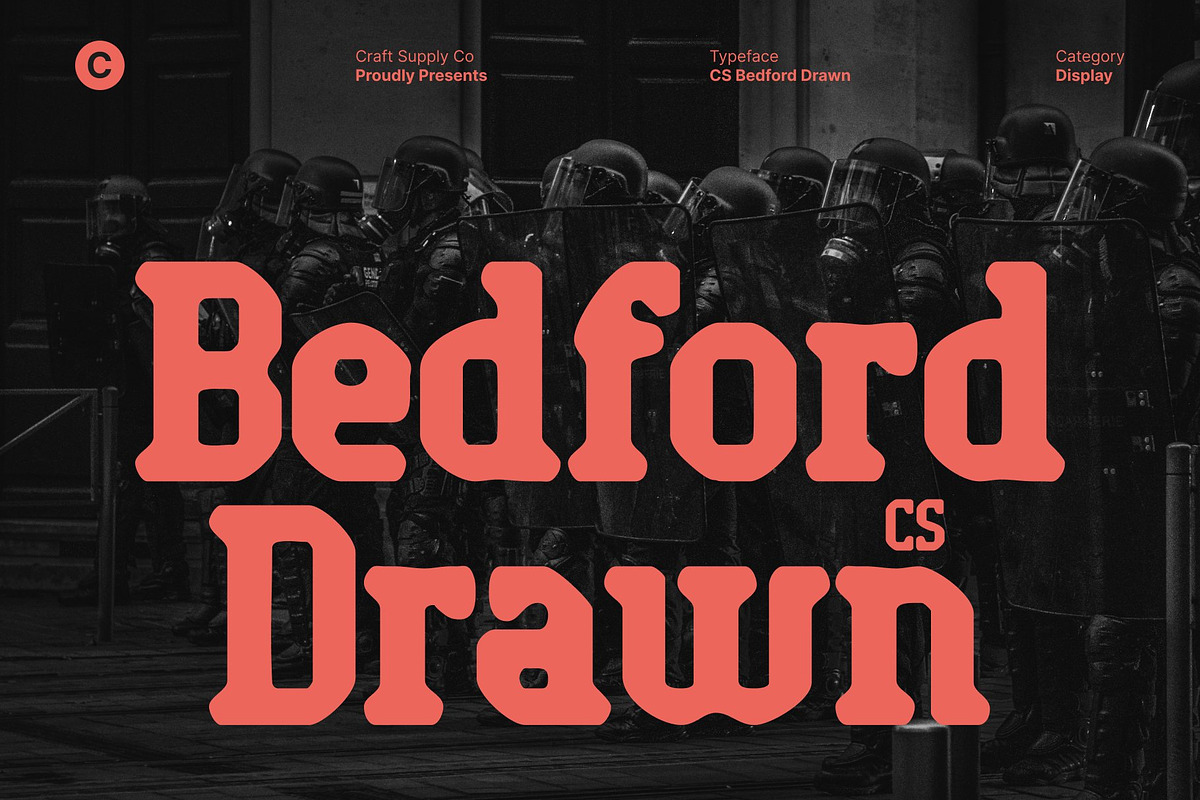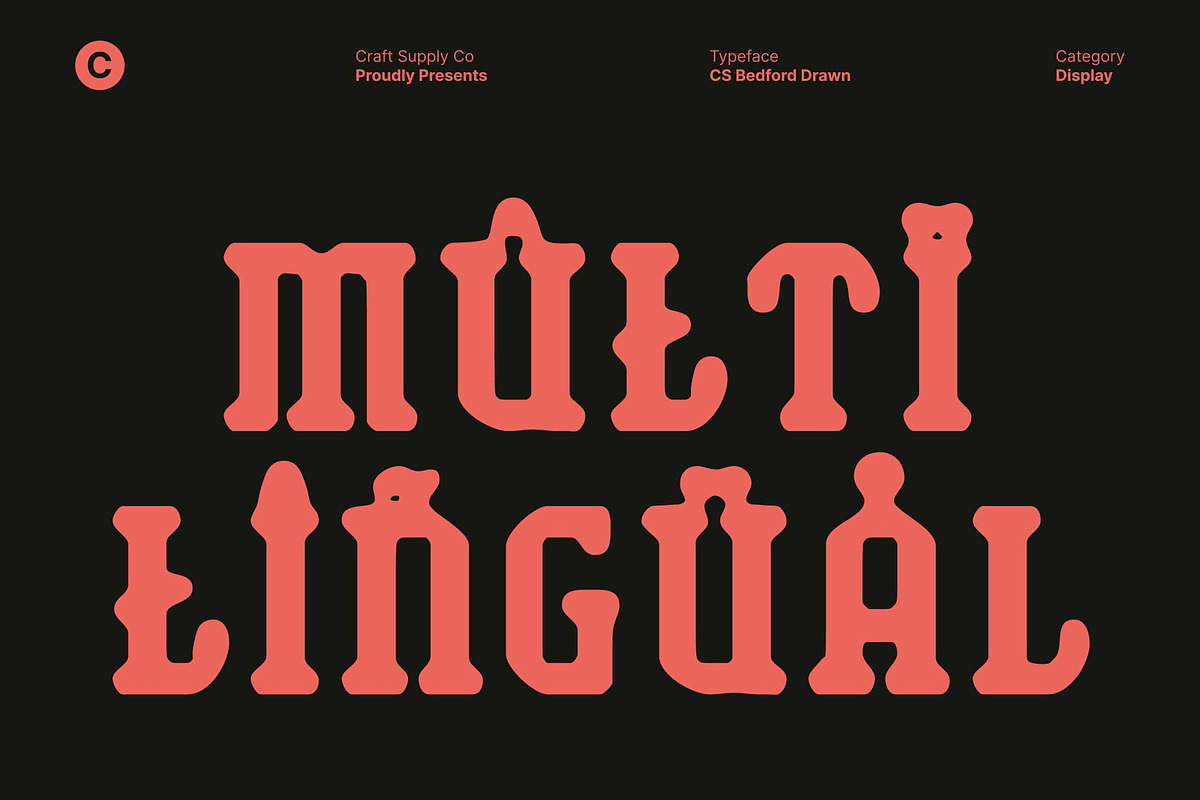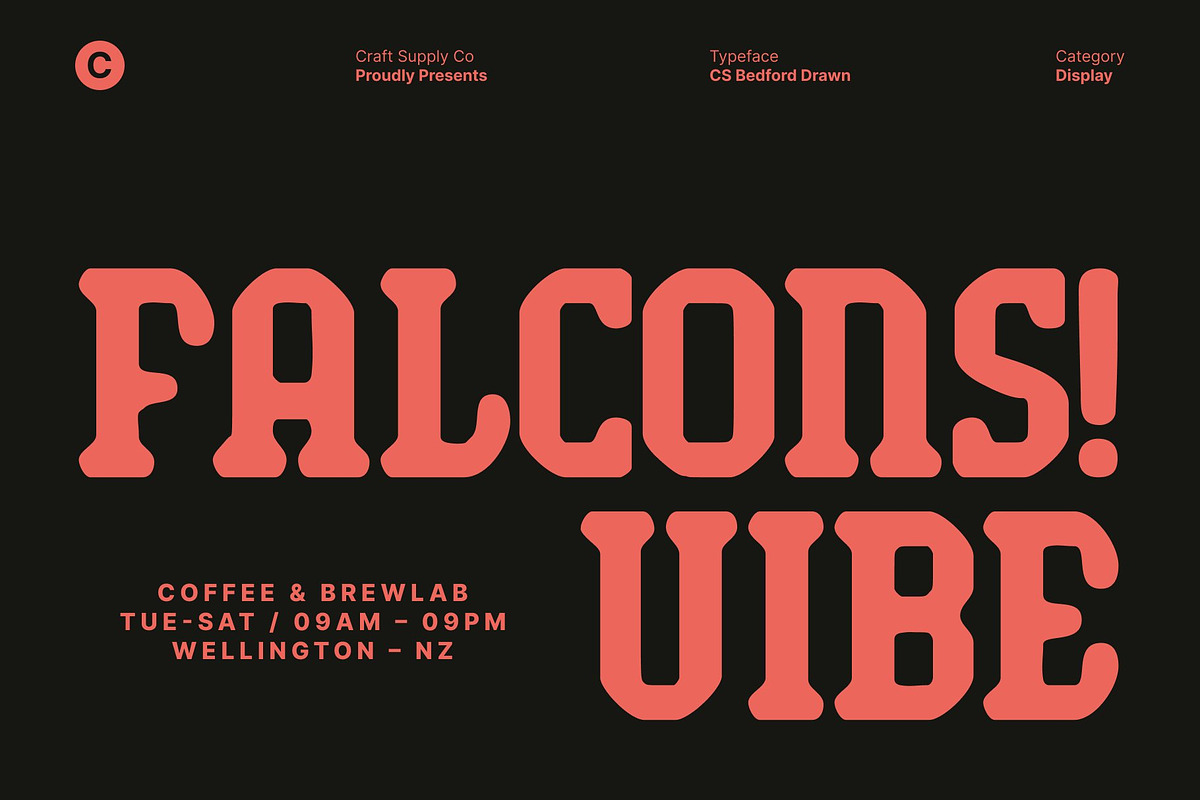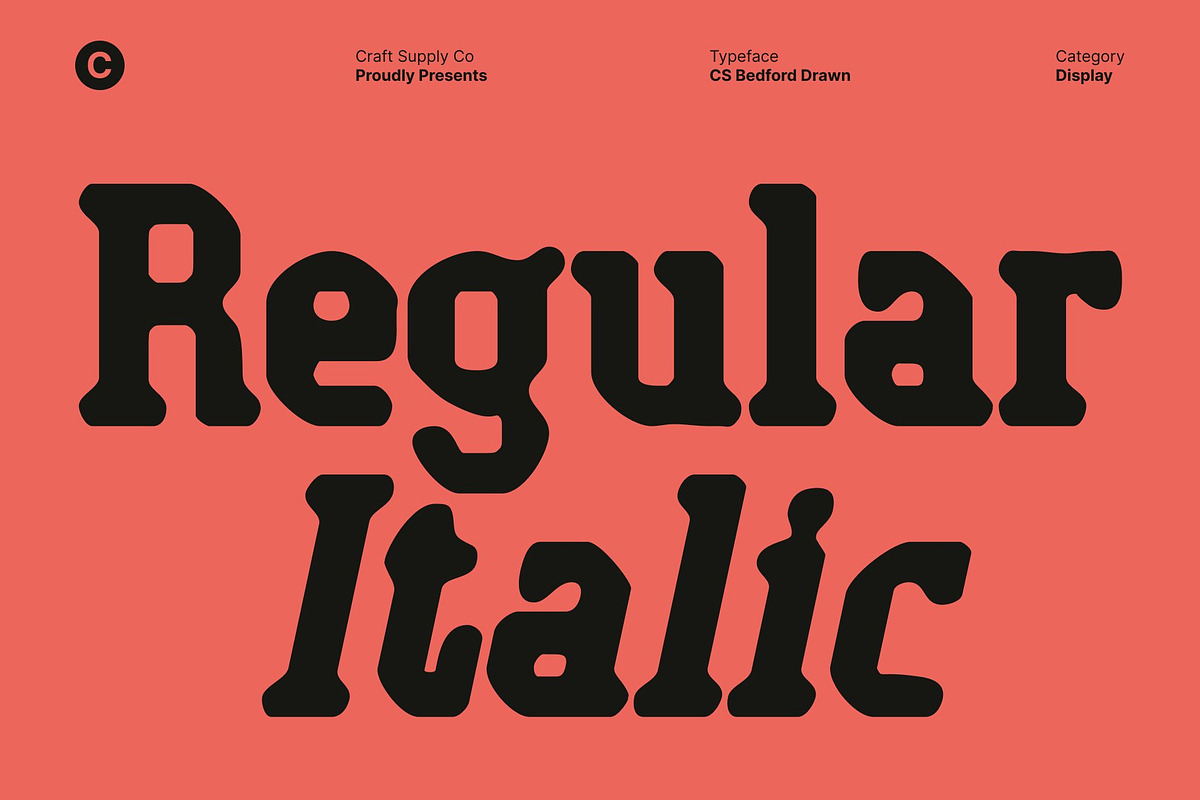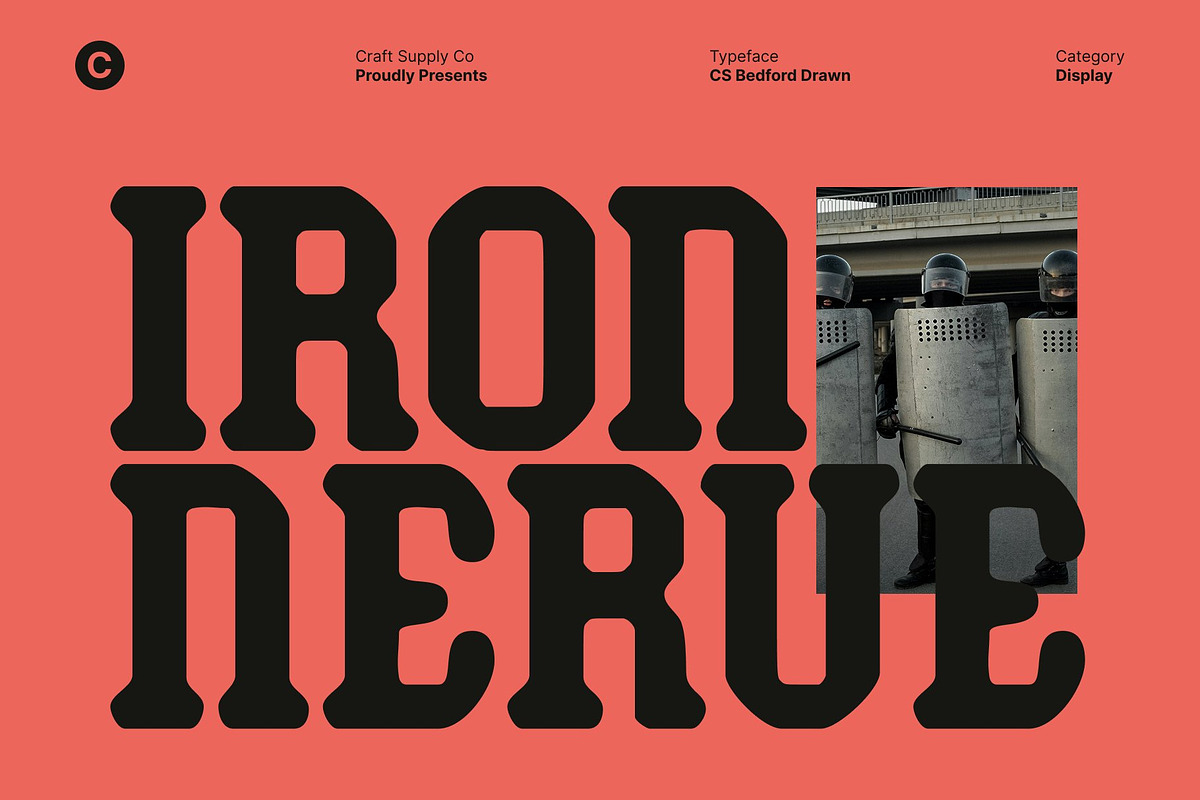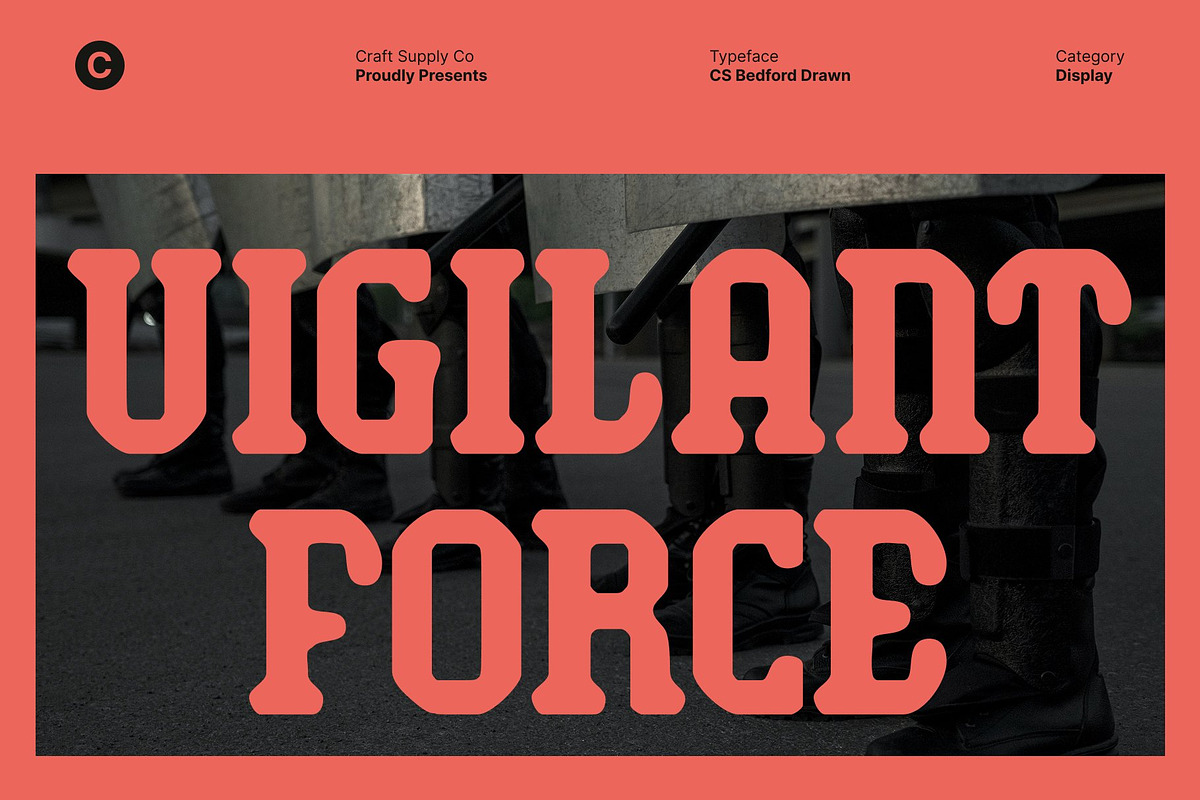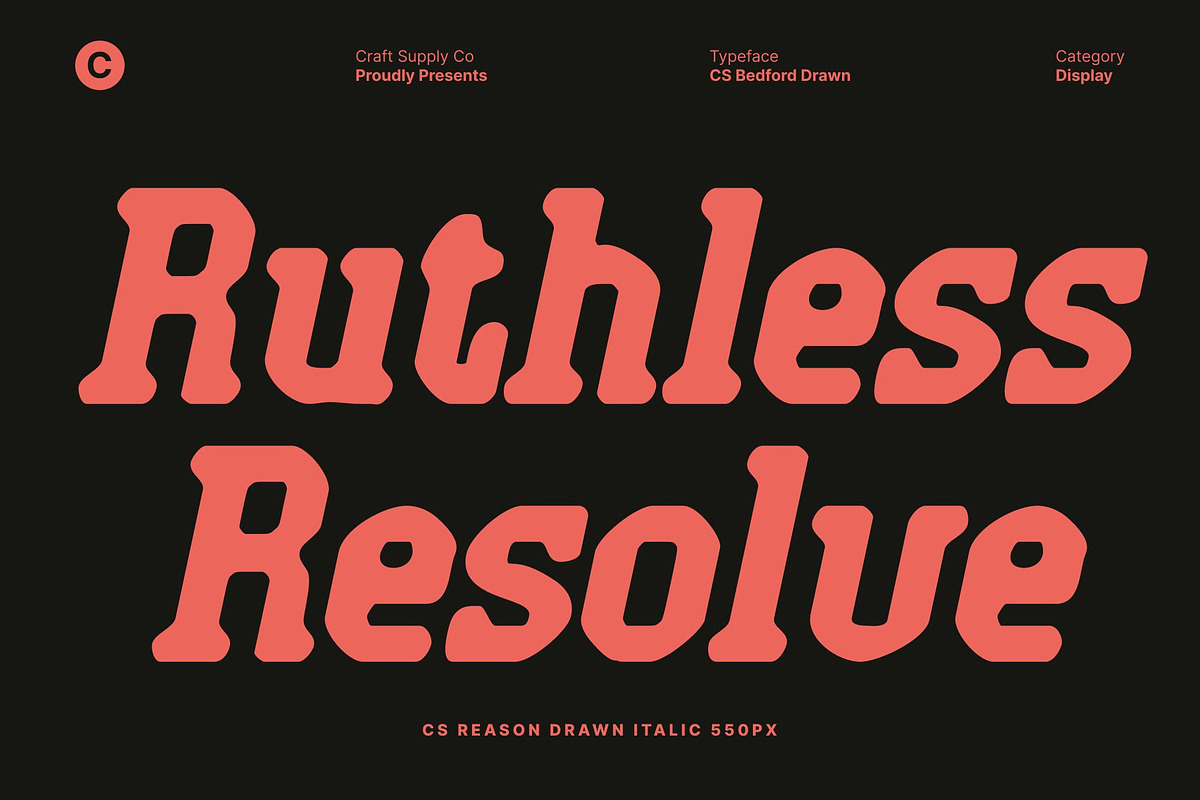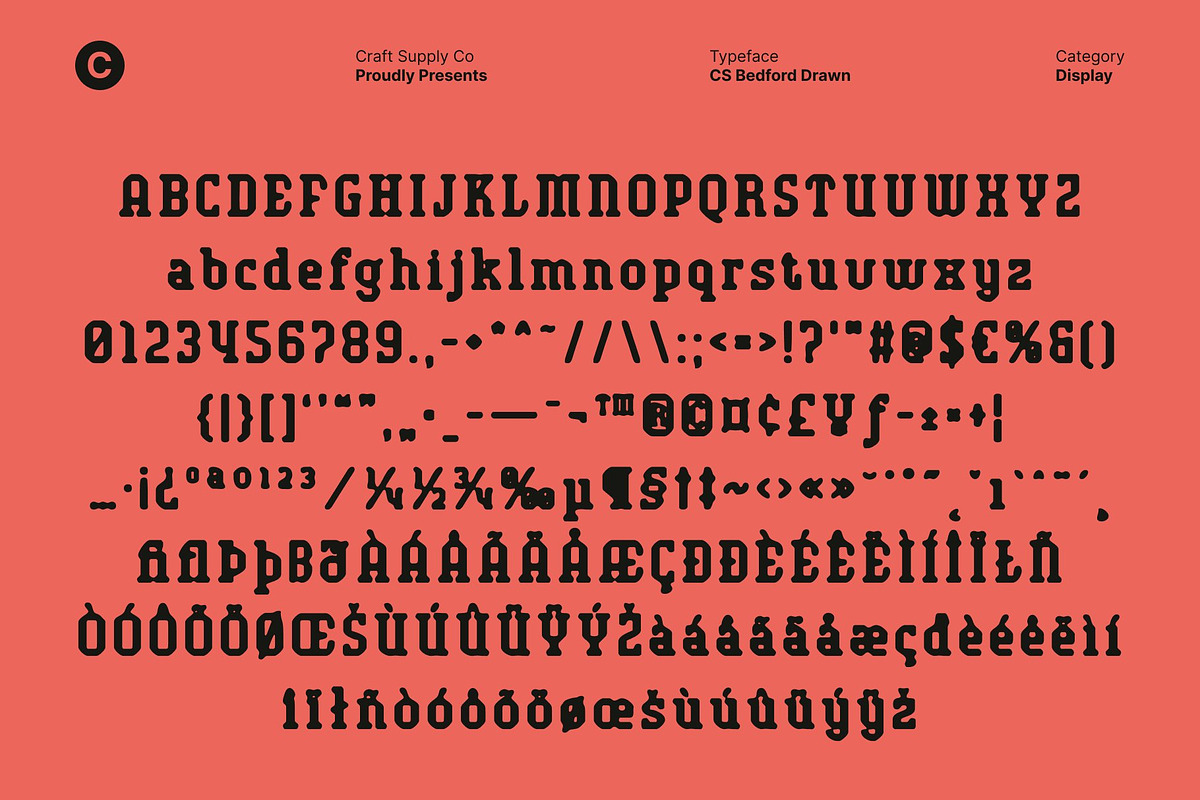
CS Bedford Drawn
CS Bedford Drawn – Modern Slab Serif Font: Futuristic, Industrial, and Assertive
Futuristic Slab Serif with Hand-Drawn Edge This is a modern slab serif font that fuses futuristic aesthetics with strong, industrial-inspired construction. Its bold, assertive letterforms project confidence and authority, while the subtle drawn texture adds a raw, handcrafted character. This combination creates a distinctive look that feels mechanical yet human, modern yet expressive.
Powerful Structure for Maximum Impact Built on a solid geometric foundation, this font delivers excellent clarity and visual strength, especially at large sizes. The sturdy slab serifs provide weight and stability, making each character feel grounded and commanding. Its structured design ensures readability while amplifying impact in bold display settings.
Industrial Character with Contemporary Appeal The industrial influence gives the font an architectural, almost engineered feel, ideal for projects that aim to communicate strength, innovation, and progress. The drawn effect softens the rigidity just enough to add personality, making it visually engaging without losing its assertive tone.
Versatile for Modern Branding and Display This font performs beautifully across headlines, posters, logos, advertising, and large-format graphics. Suitable for both print and digital use, it’s an excellent choice for modern branding, editorial design, and promotional visuals that demand a bold, futuristic, and memorable typographic voice.